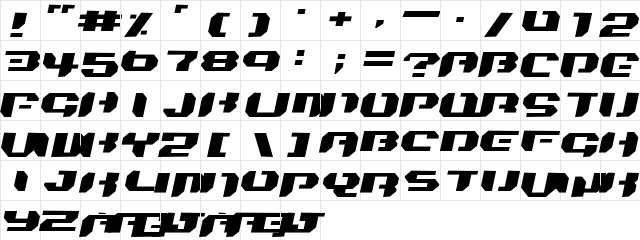
Bionic Kid Simple Slanted Regular
Design Context for Bionic Kid Simple Slanted Typeface
Bionic Kid Simple Slanted is a composed and adaptable typeface that performs quietly and consistently across a wide range of design contexts. The dynamic lean of this cut emphasises speed and emphasis in any layout.